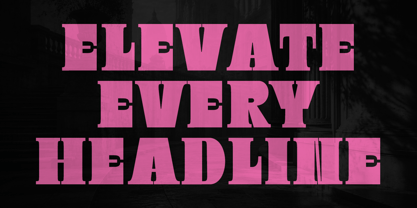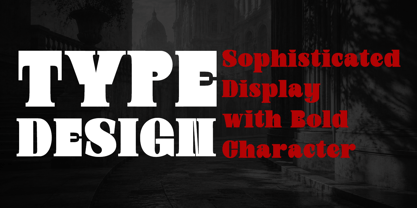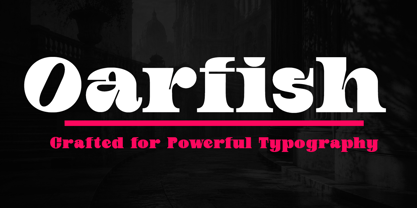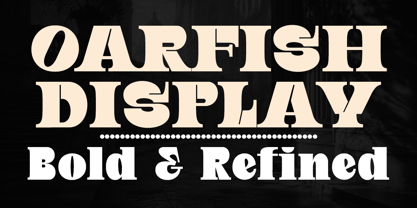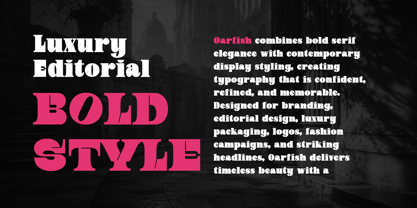
Oarfish
La familia tipográfica Oarfish fue diseñada por Roiyani Teungku y publicada por Groen Studio. Oarfish contiene 2 estilos y opciones de paquete familiar. Más información sobre esta familia
Oarfish is a bold serif display font designed to make a lasting impression. Combining timeless serif elegance with contemporary character, it features striking letterforms, sharp details, and refined proportions that bring sophistication to every design.
Perfect for headlines, luxury branding, editorial layouts, book covers, fashion campaigns, premium packaging, logos, posters, invitations, and social media graphics, Oarfish delivers a strong visual identity while maintaining exceptional readability at large sizes.
With two carefully crafted styles, Oarfish offers the flexibility to create elegant contrasts and expressive typography for both classic and modern creative projects.
Features:
• 2 Font Styles
• Uppercase & Lowercase
• Numerals & Punctuation
• Multilingual Support
• Ideal for Branding, Editorial, Fashion, Packaging, Logos, Posters, and Display Typography